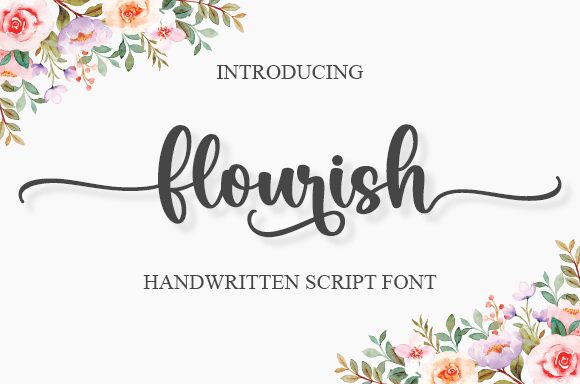
Flourish
Flourish is a bold calligraphy font by Graphix Line Studio that exudes elegance and sophistication. With its fluid strokes and intricate details, this font is perfect for formal invitations, wedding stationery, and branding for luxury products. The bold weight of Flourish makes it ideal for headlines, titles, and logos that require attention-grabbing typography. Add a touch of class to your project with Flourish – whether it's a high-end restaurant menu or an upscale fashion brand. This font will elevate any design with its timeless beauty and classic charm.